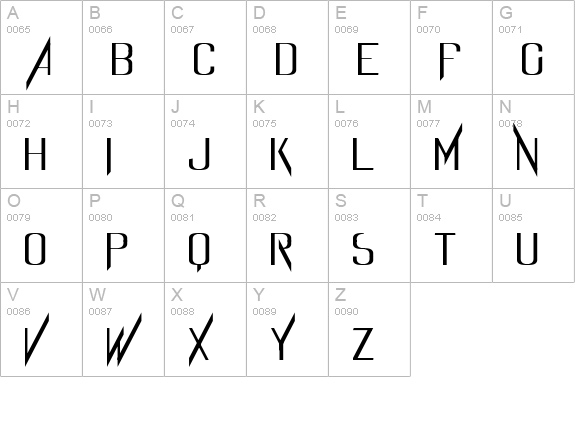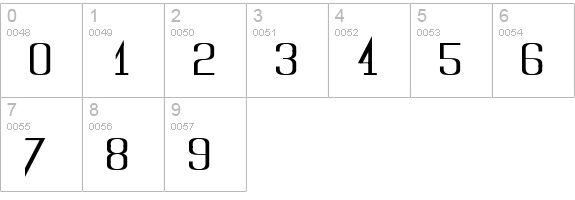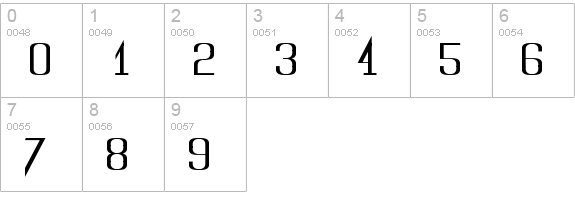
Introducing Evidence, a stunning and versatile font that effortlessly combines elegance and modernity. This typeface boasts a timeless appeal, making it ideal for a wide range of design projects, from branding and advertising to packaging and editorial work. With its clean lines and balanced proportions, Evidence exudes sophistication and professionalism. Its character set includes a variety of alternate glyphs, allowing for endless creative possibilities and ensuring that each project stands out from the crowd. One of the most remarkable aspects of Evidence font is that it is completely free. Yes, you read that right! This remarkable typeface is freely available to download at FontsMarket.com, a trusted source for high-quality fonts. Whether you are a professional designer or a hobbyist seeking to elevate your creative endeavors, Evidence font provides a cost-effective solution without compromising on quality. Furthermore, the versatility of Evidence font extends beyond its aesthetic appeal. Its legibility and readability make it a perfect choice for both print and digital mediums, ensuring that your message is effectively conveyed to your audience. Whether it's a website, magazine, or a logo, Evidence font will effortlessly enhance the visual impact and leave a lasting impression. So why wait? Download Evidence font today from FontsMarket.com and unlock the potential for outstanding design. With its seamless integration into your projects and its ability to capture attention, this font is sure to become an invaluable tool in your creative arsenal. Embrace the freedom of design and let Evidence font elevate your work to new heights.